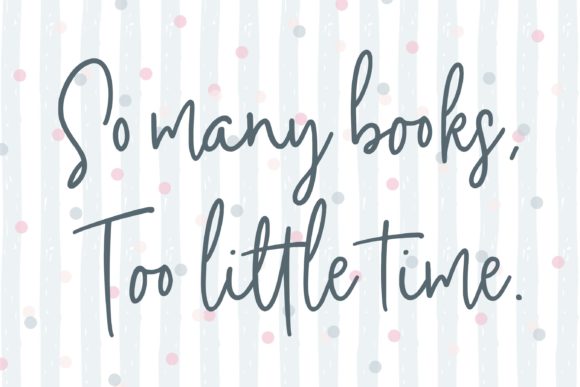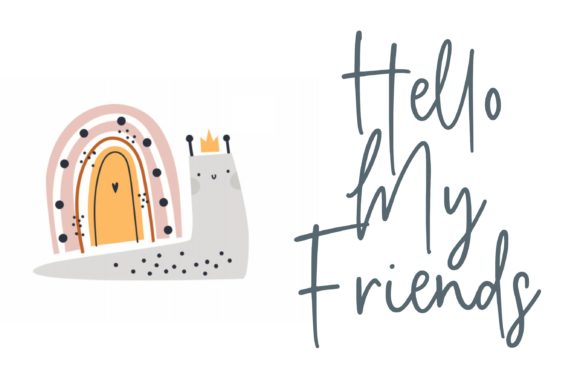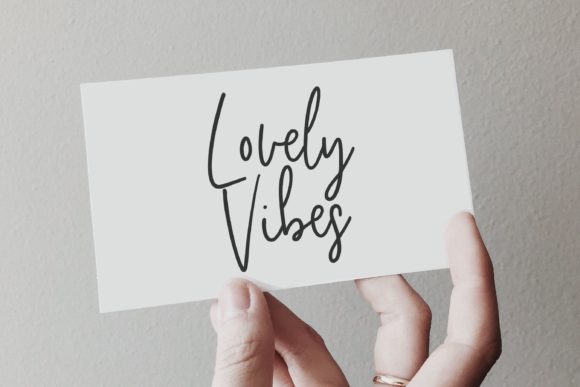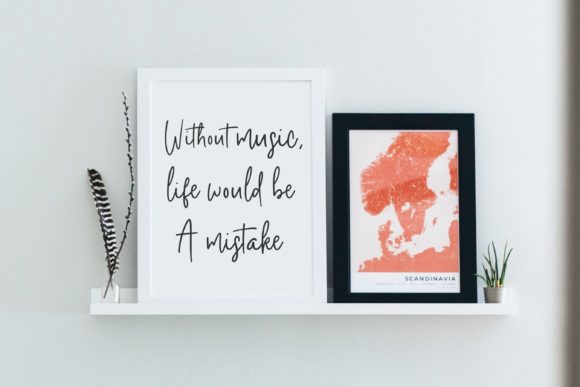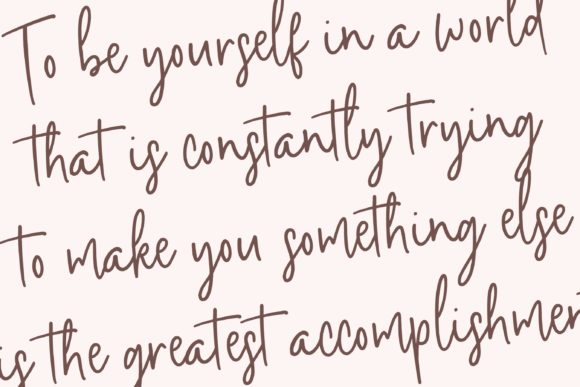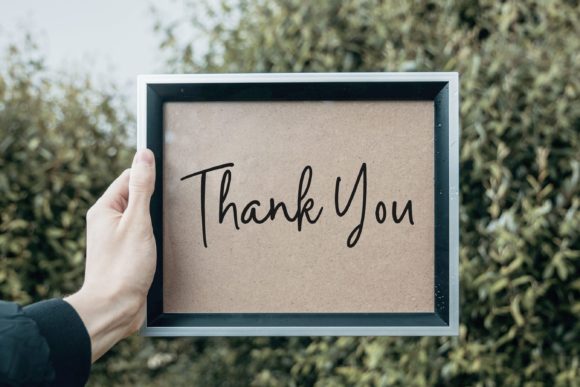
Mattiface Font
About Mattiface Font
Mattiface is a modern handwritten font, perfect for both formal and non-formal designs. This versatility will appeal to a wide range of crafty ideas, from letterheads and titles, to stationery.